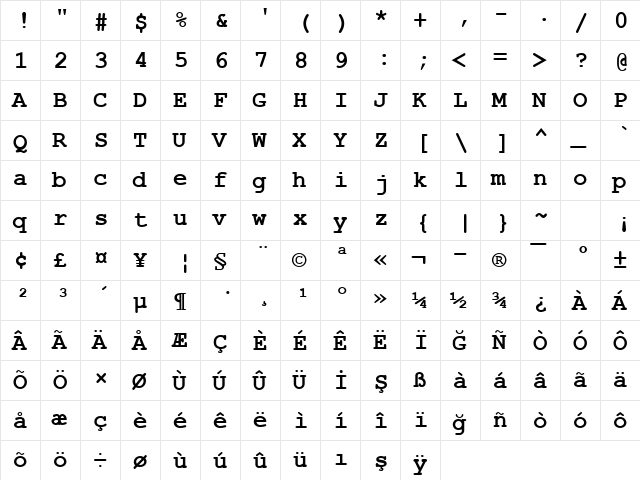
TR Courier New Bold
Design Context for TR Courier New Typeface
TR Courier New uses fixed-width spacing throughout, giving it the structured, systematic character associated with coding environments and technical documentation. The heavy weight commands attention and anchors typographic hierarchies.